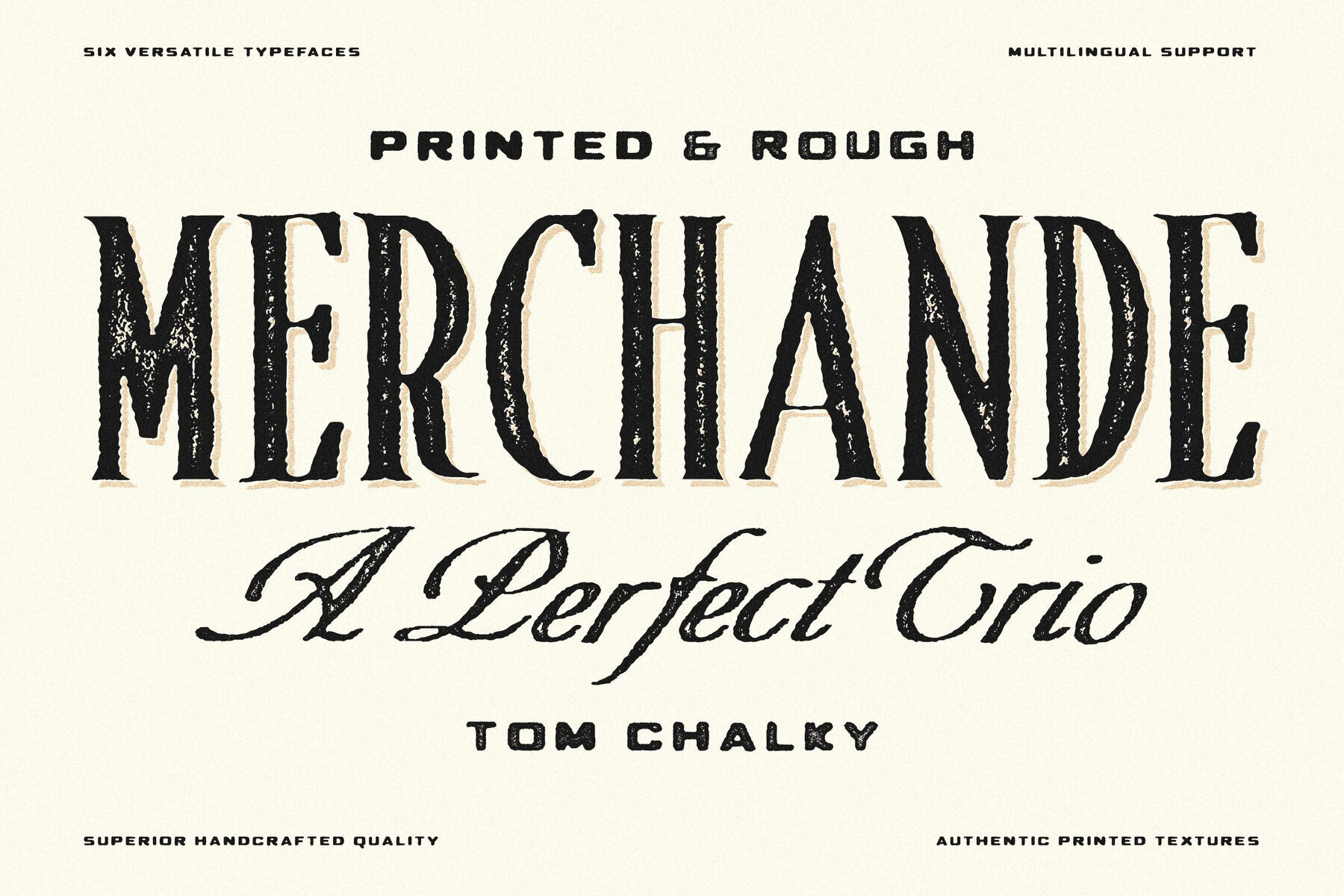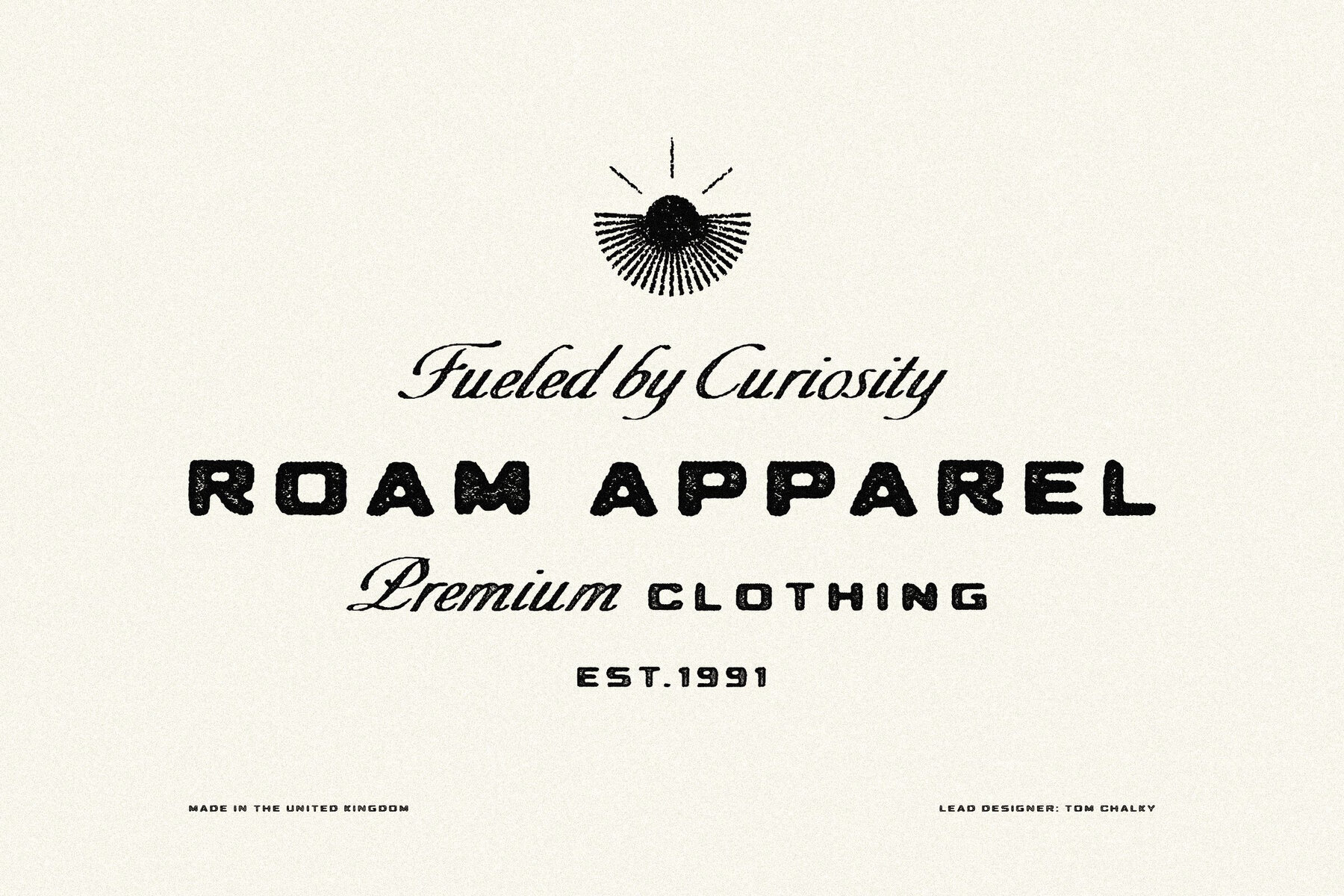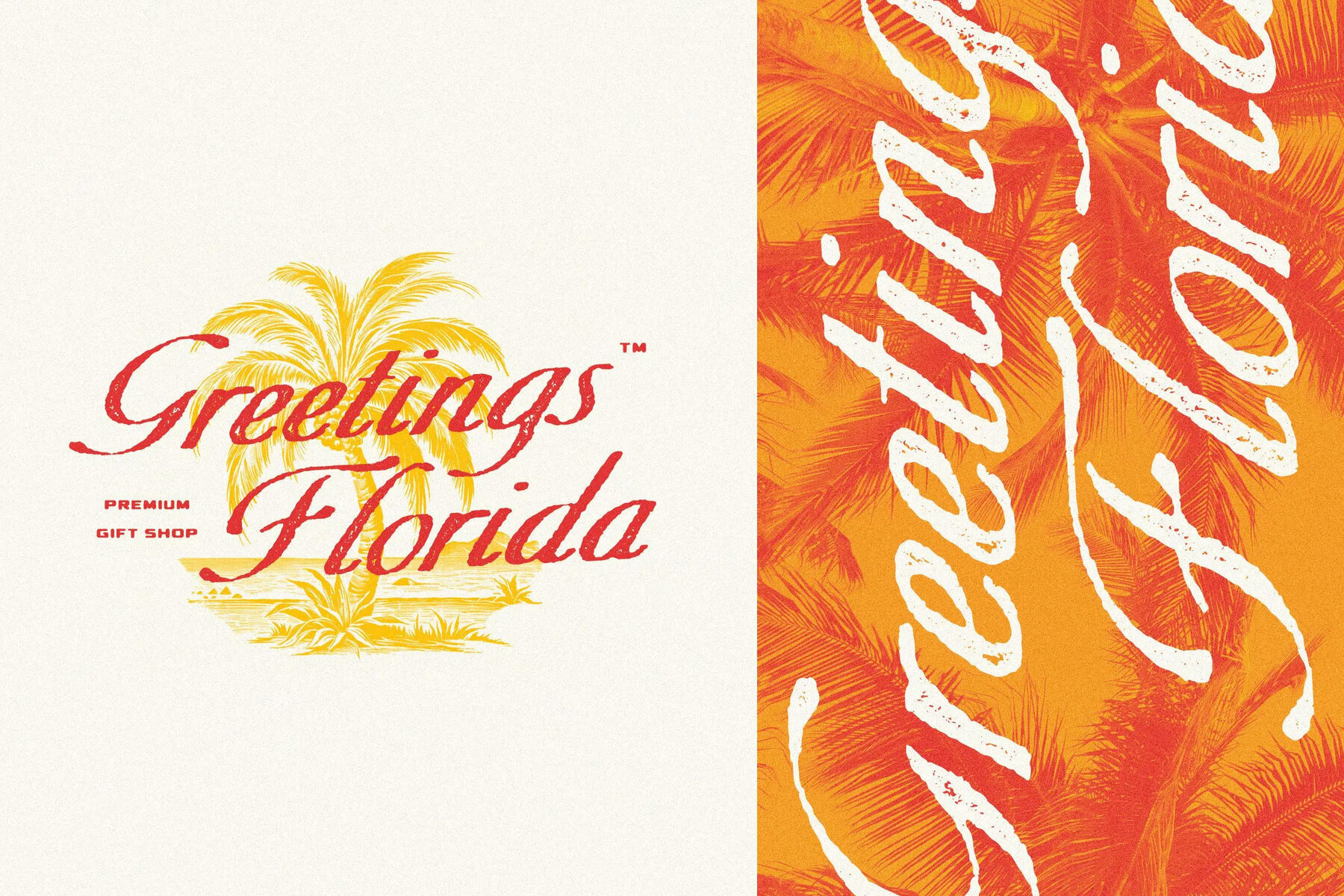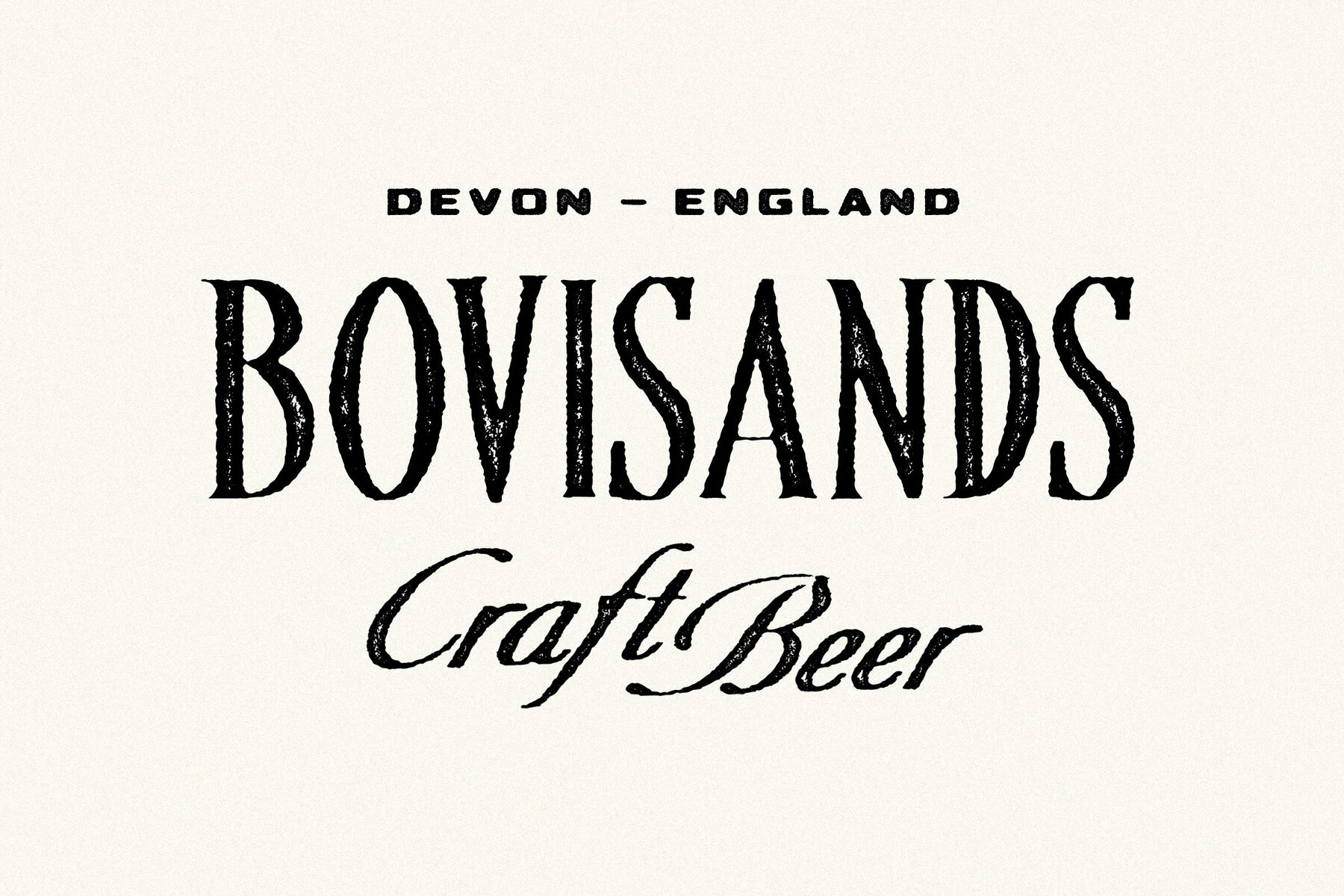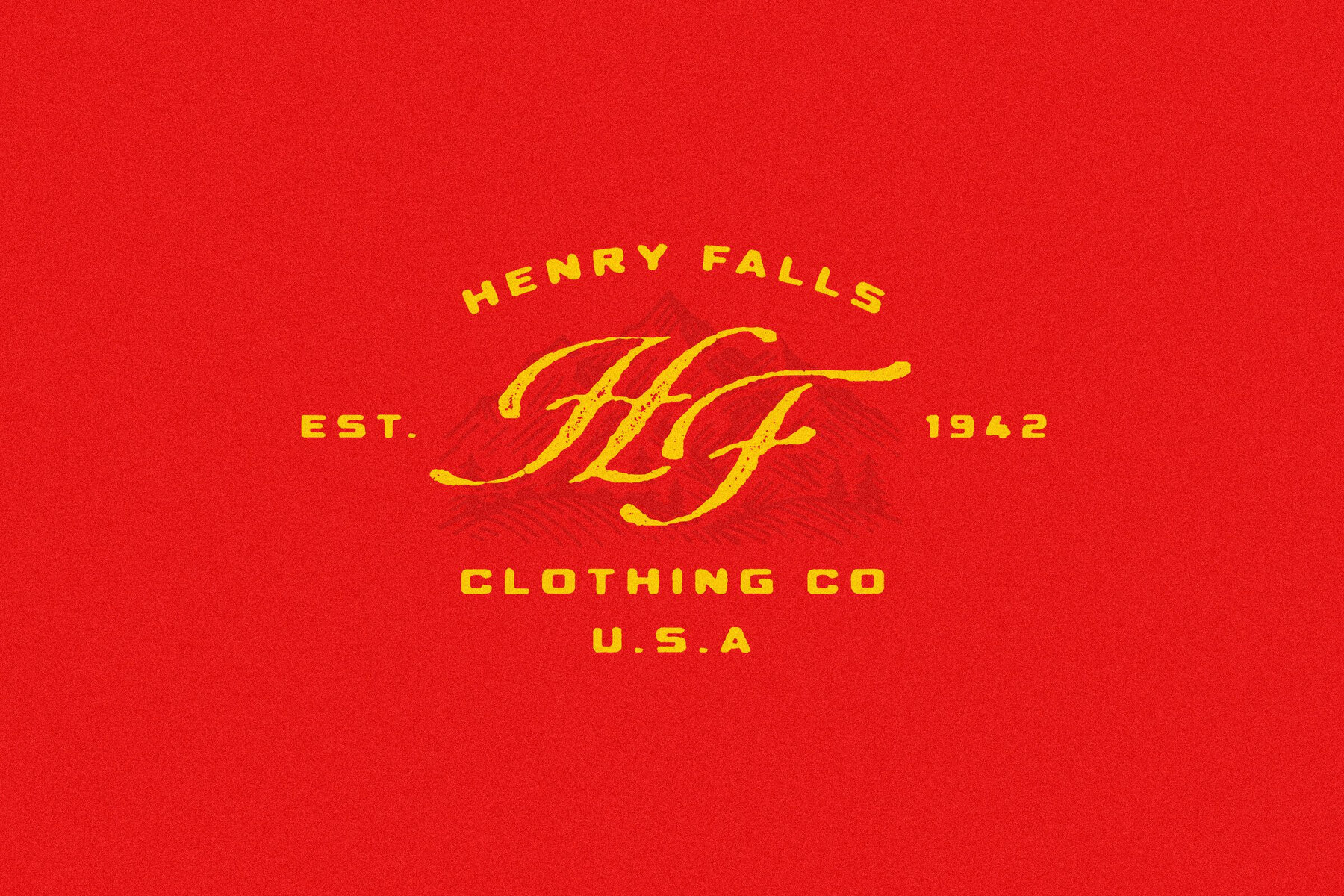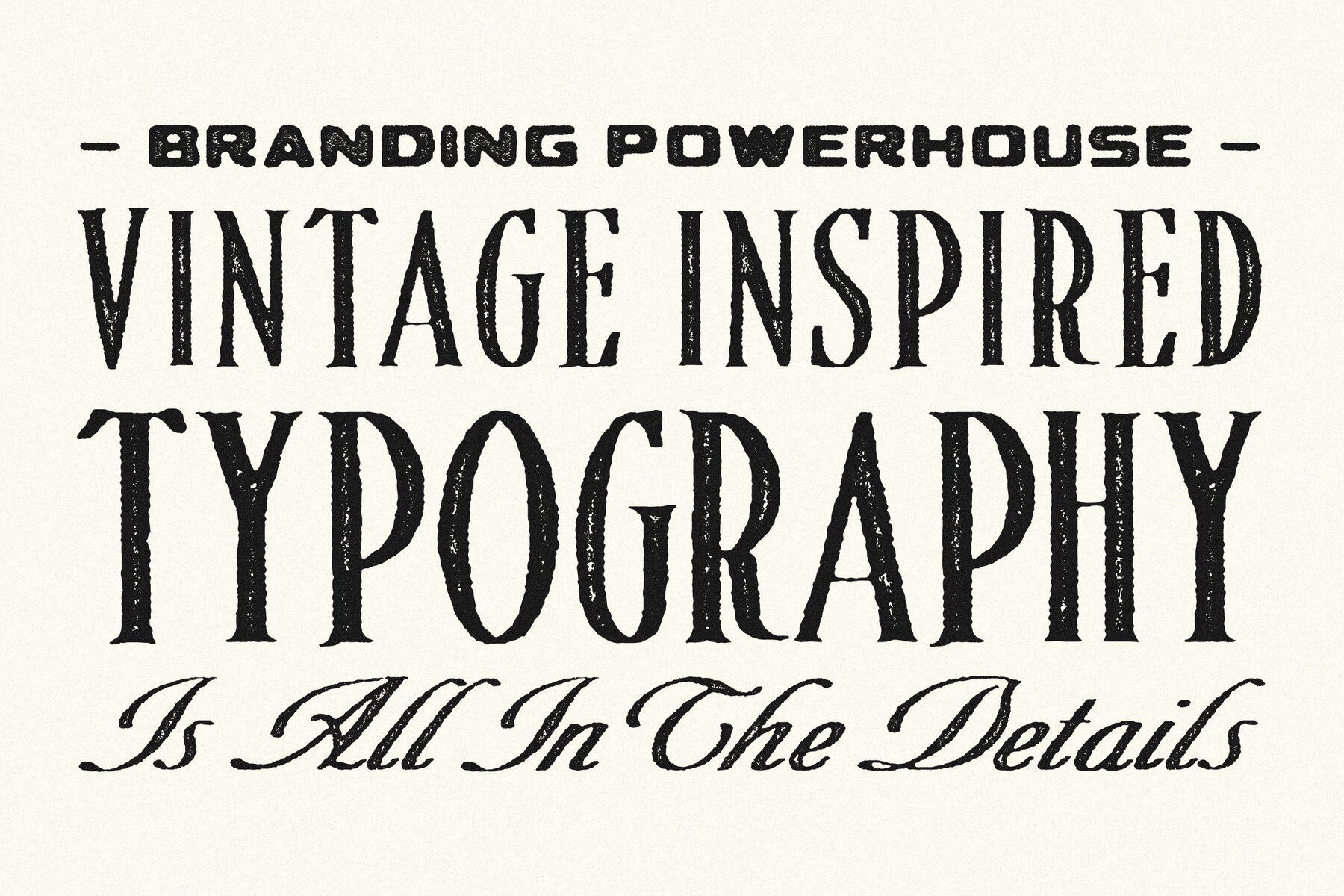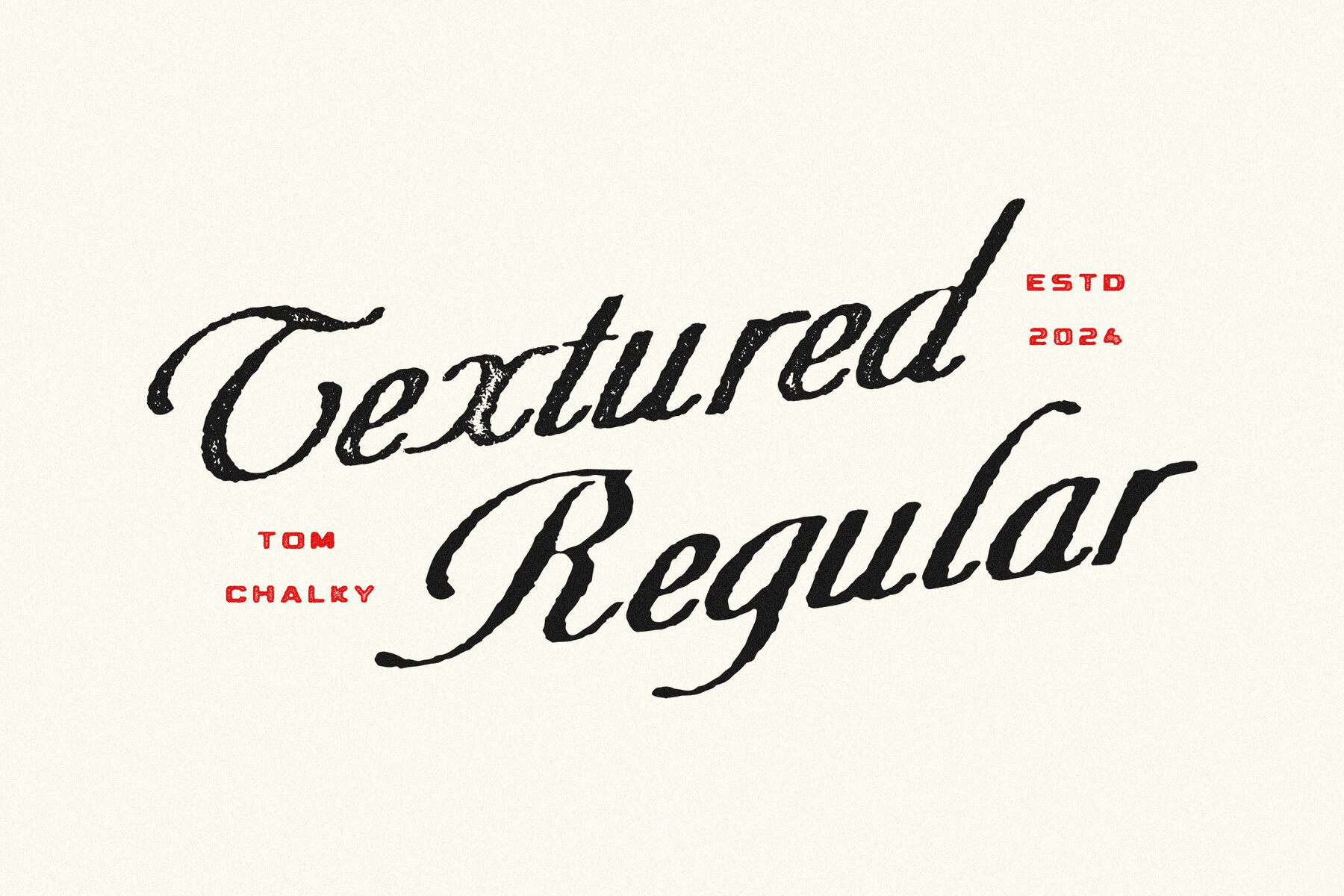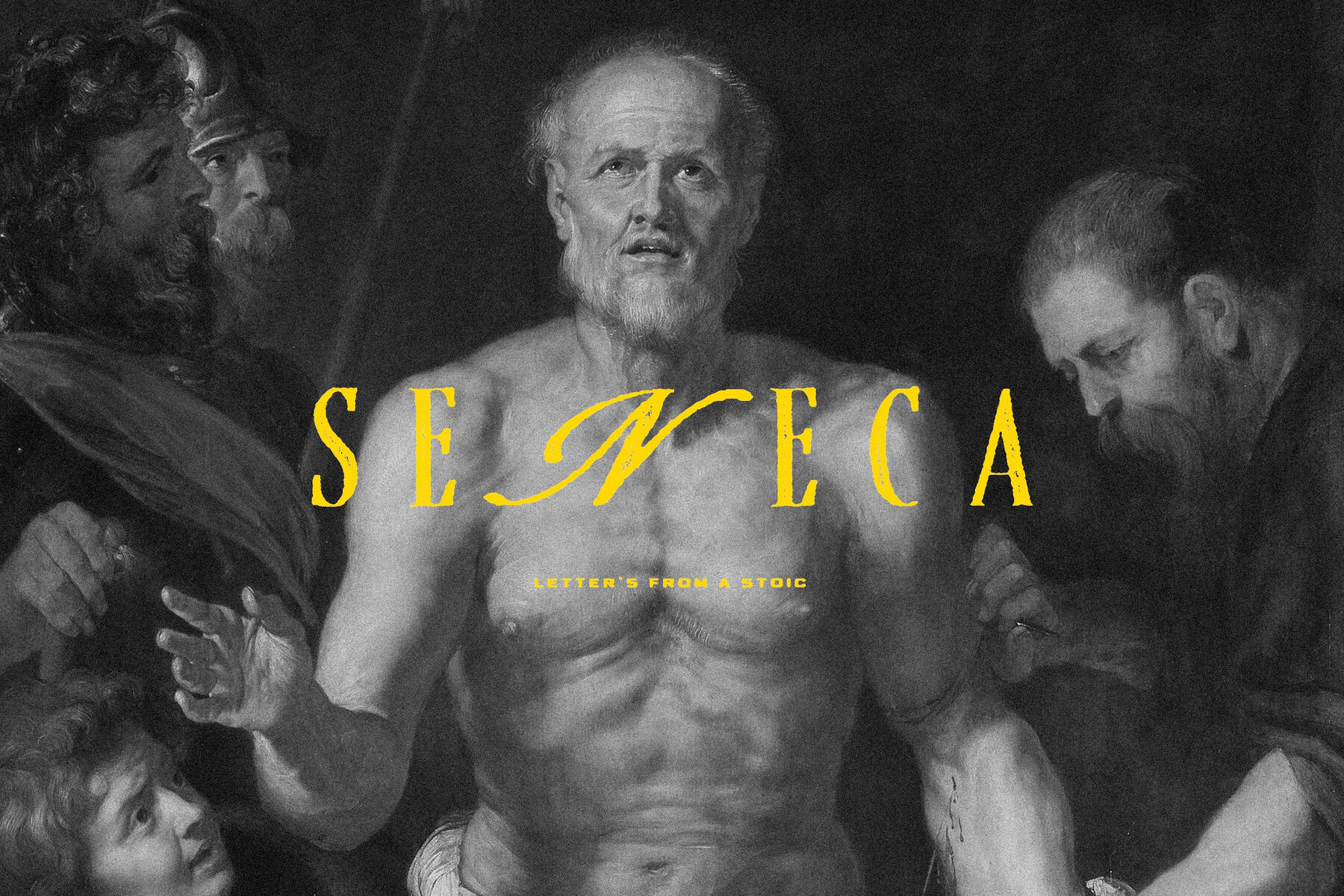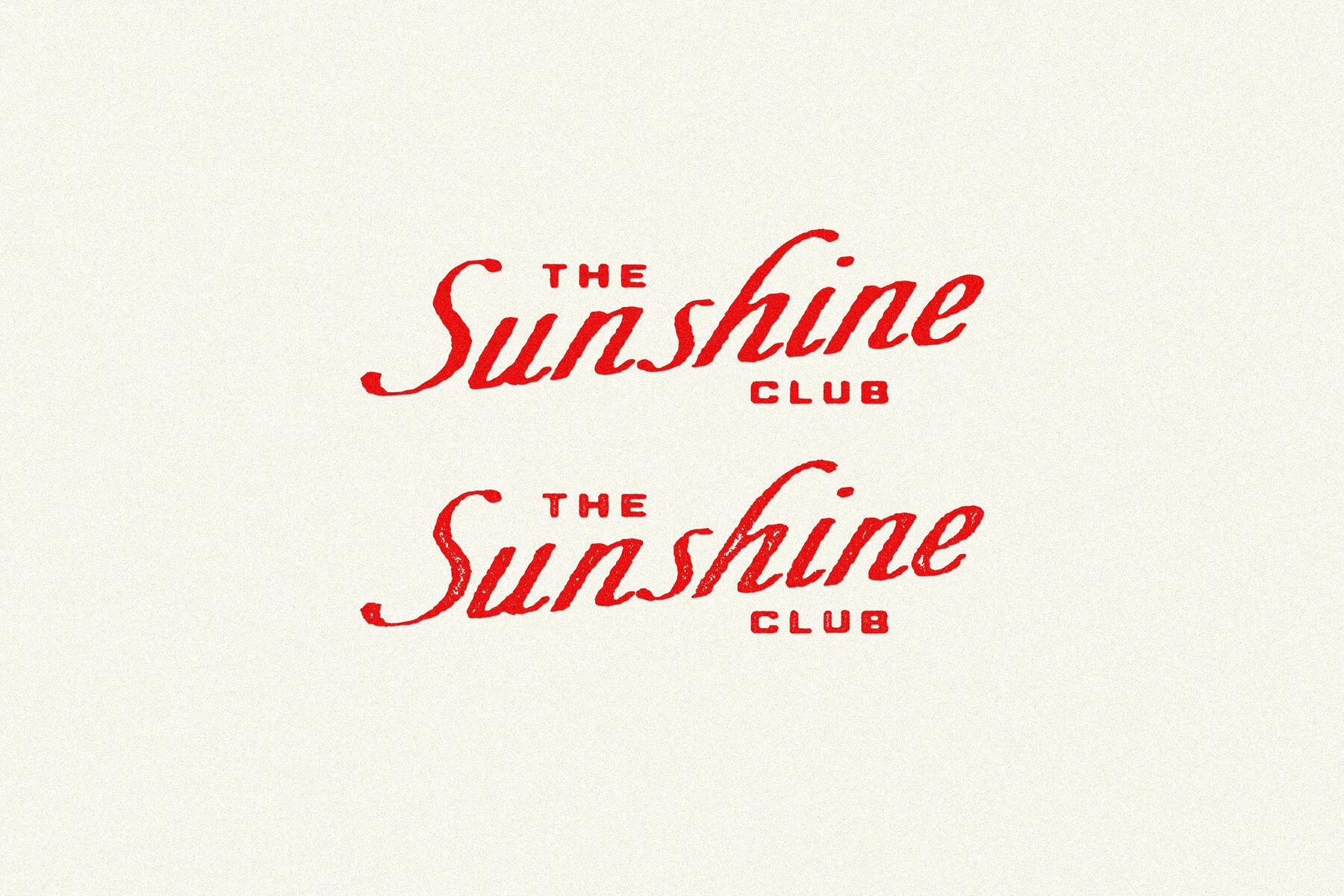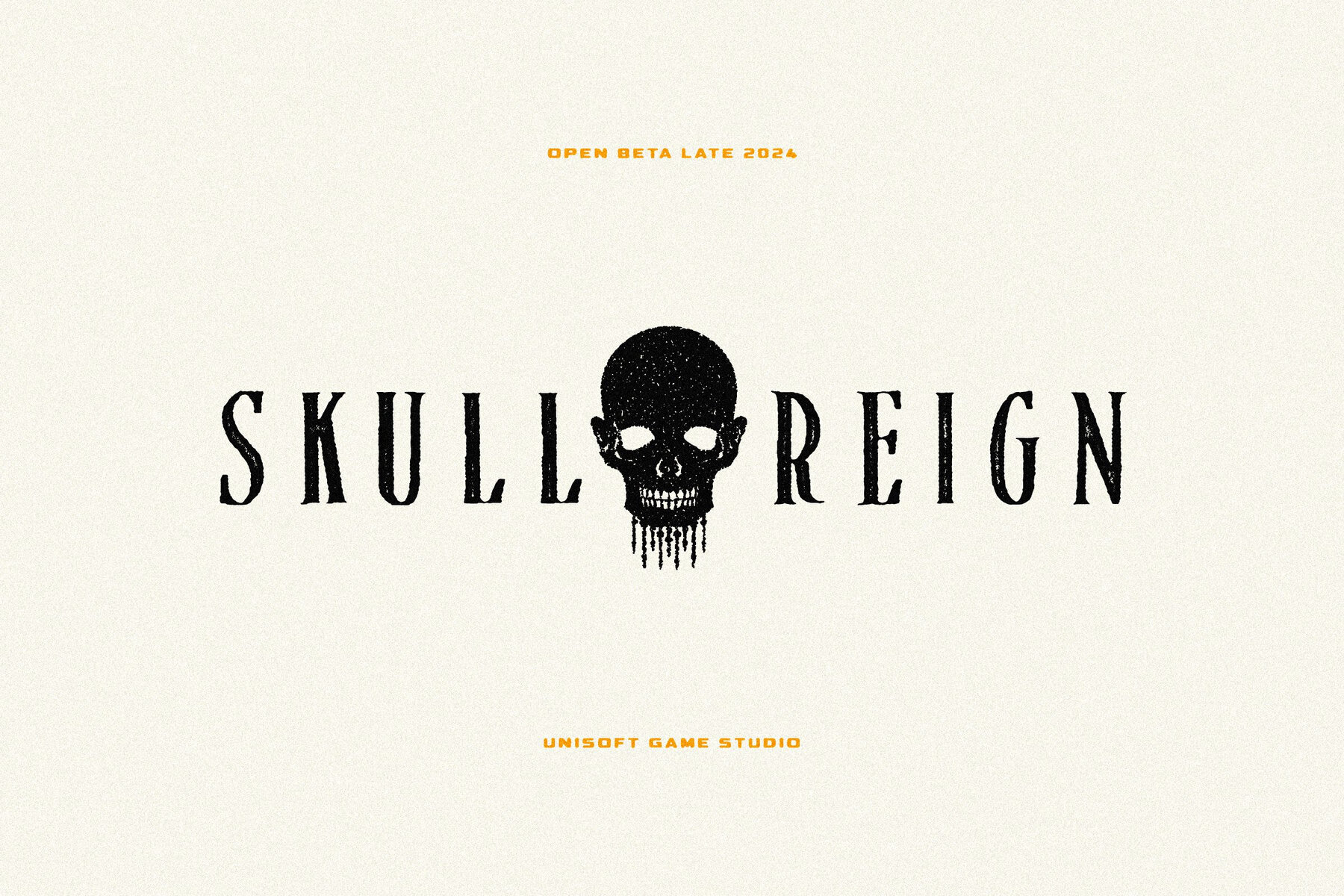
TC Merchande Print Font
Merchande Print Sans Regular
Merchande Print Script Regular
Merchande Print Serif Regular
Merchande Print Sans Rough
Merchande Print Script Rough
Merchande Print Serif Rough
Vintage charm meets modern finesse with Merchande Print — The textured evolution of the popular Merchande Trio. Drawing inspiration from a plethora of mid-century typefaces, Merchande Print bridges the gap between nostalgia and contemporary design. This font family offers a handcrafted sans, serif, and script that stand out on their own and blend seamlessly when paired. Whether it's elevating your brand's aesthetic, giving depth to your packaging, or infusing character into your advertising and print endeavors, Merchande Print is designed to deliver a touch of the artisanal to every word. Dive into the collection and let your creative projects resonate with a genuine textured typographic experience.